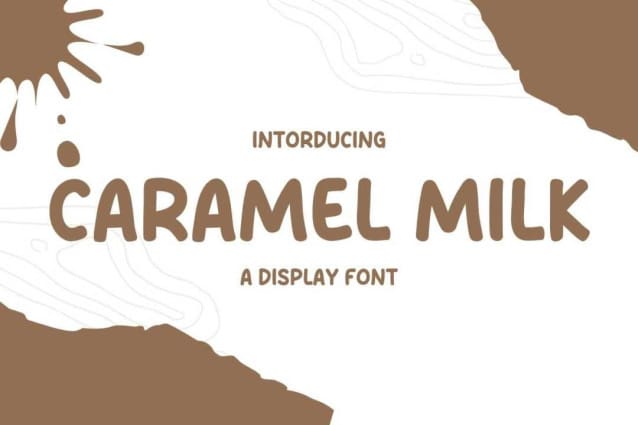
Caramel Milk Font
Caramel Milk Font, is a chunky, comic, and cartoon display font. With its neat and joyful personality, this font will enhance any project you wish to create!